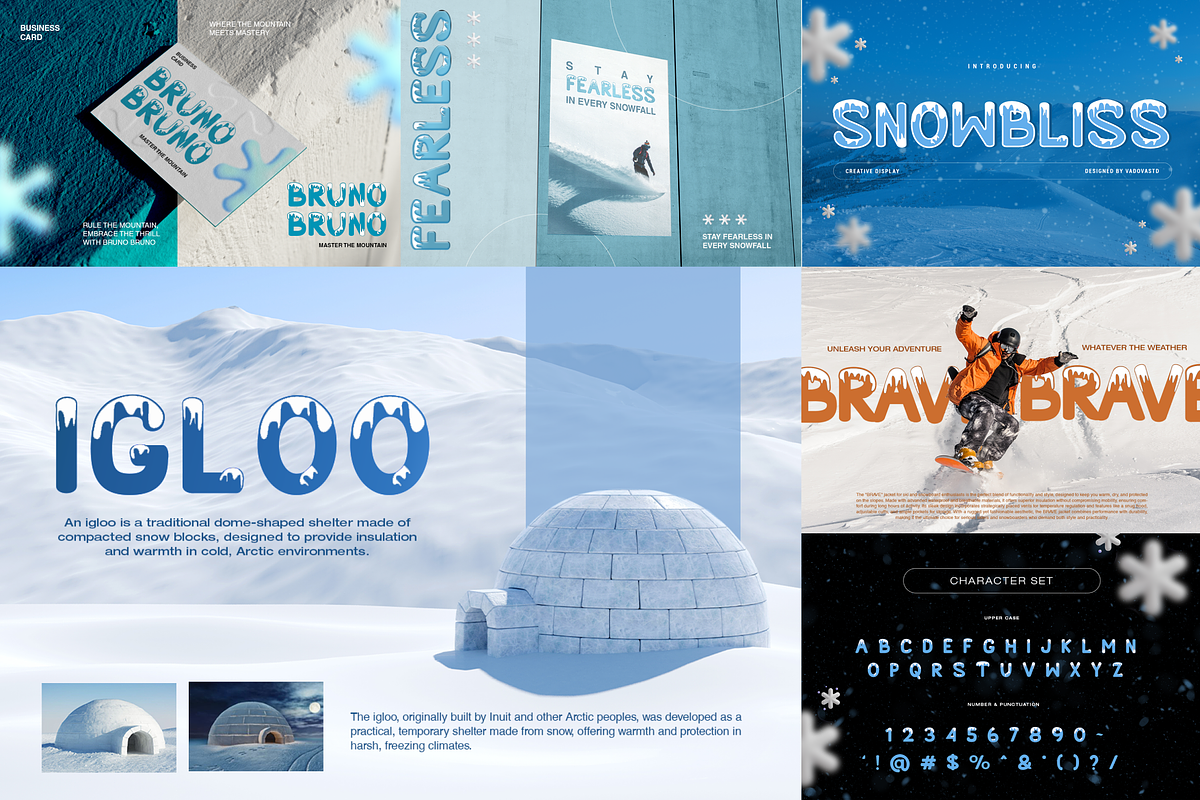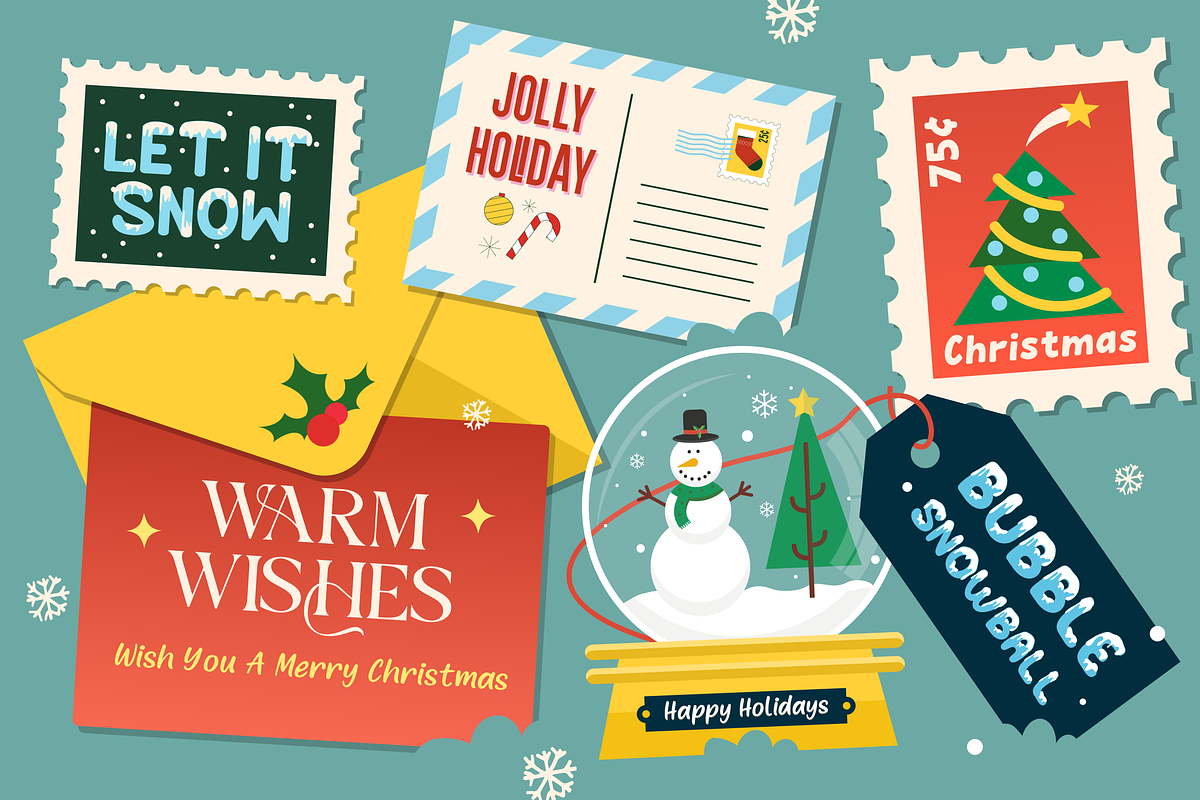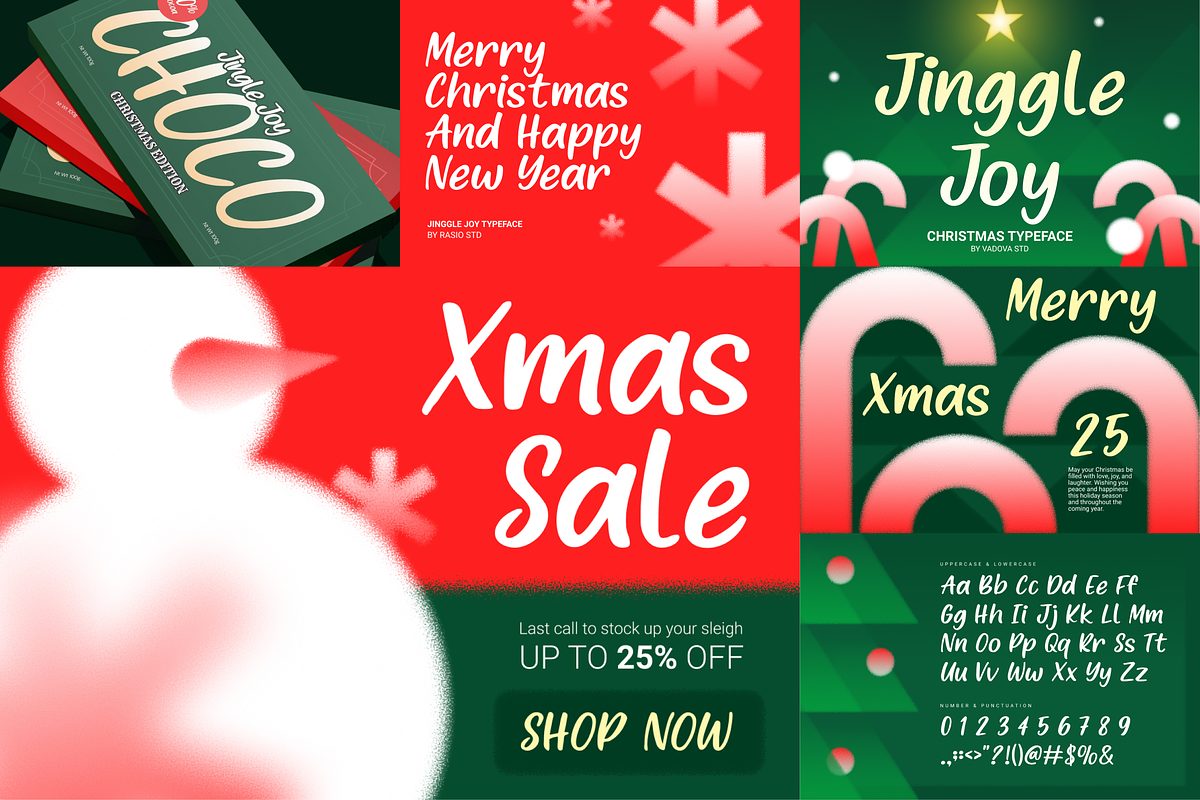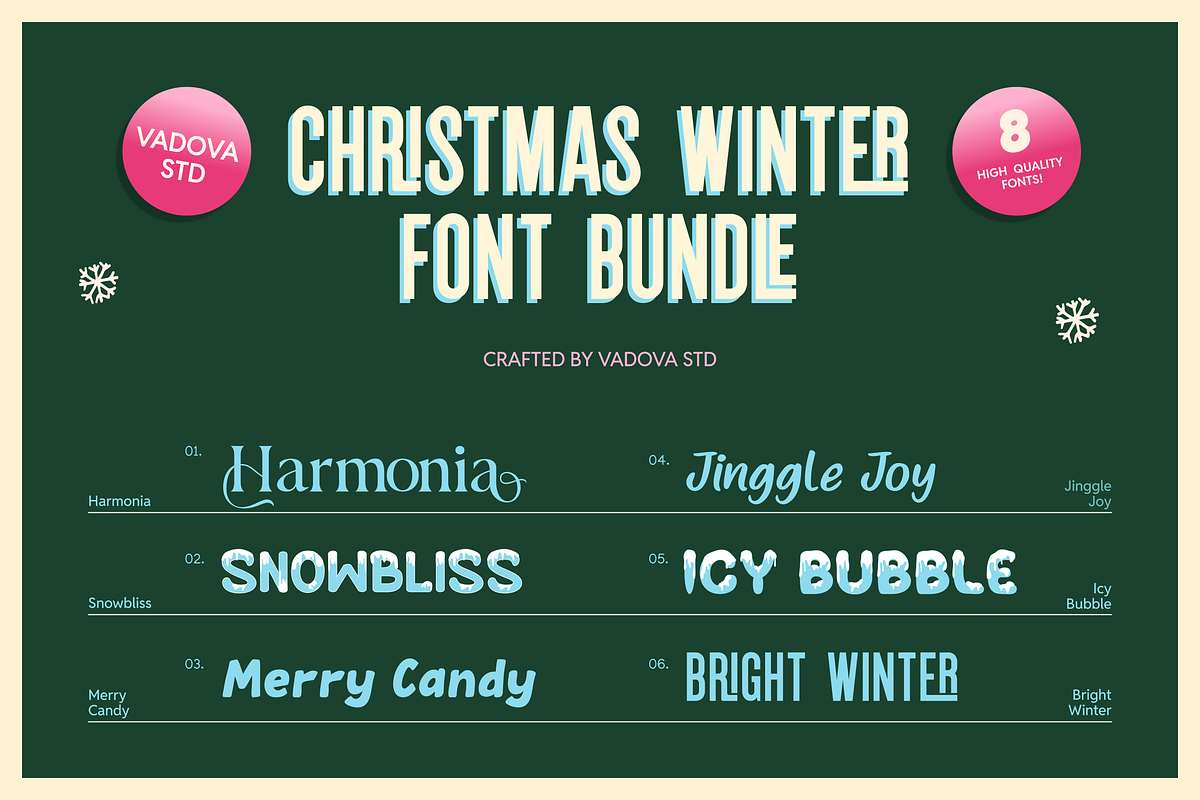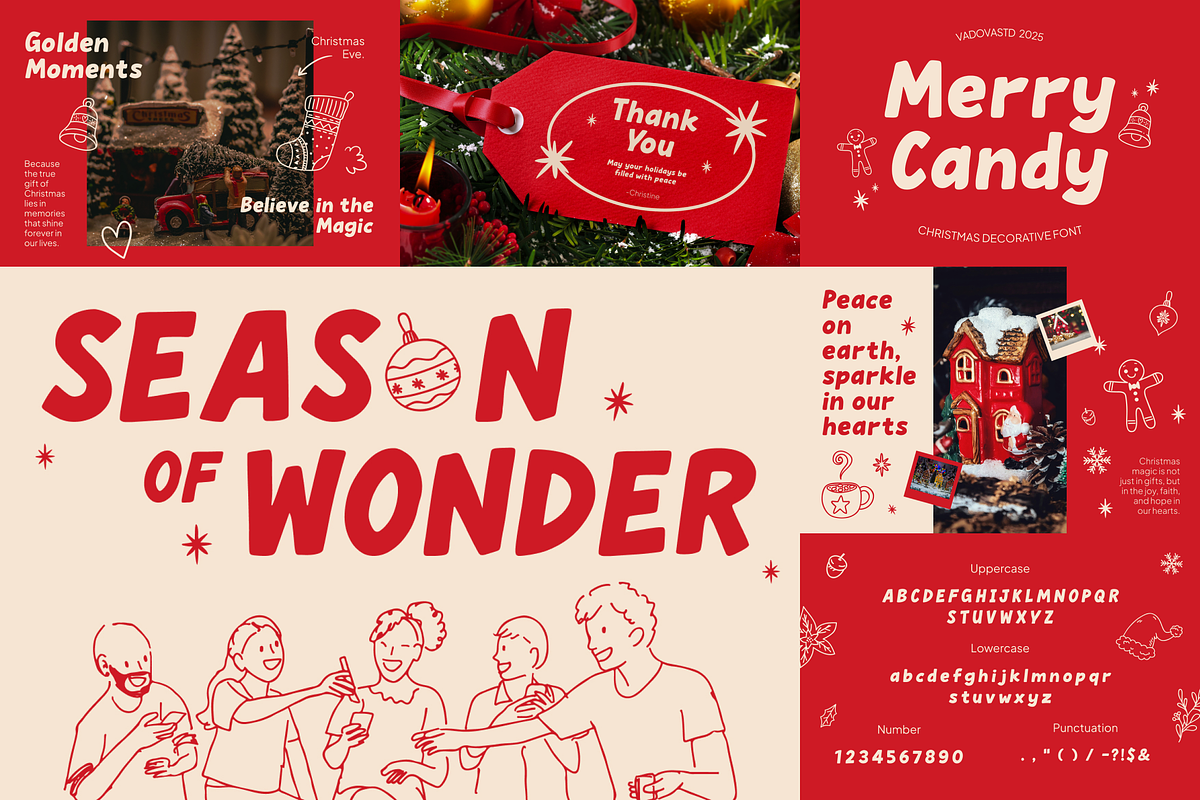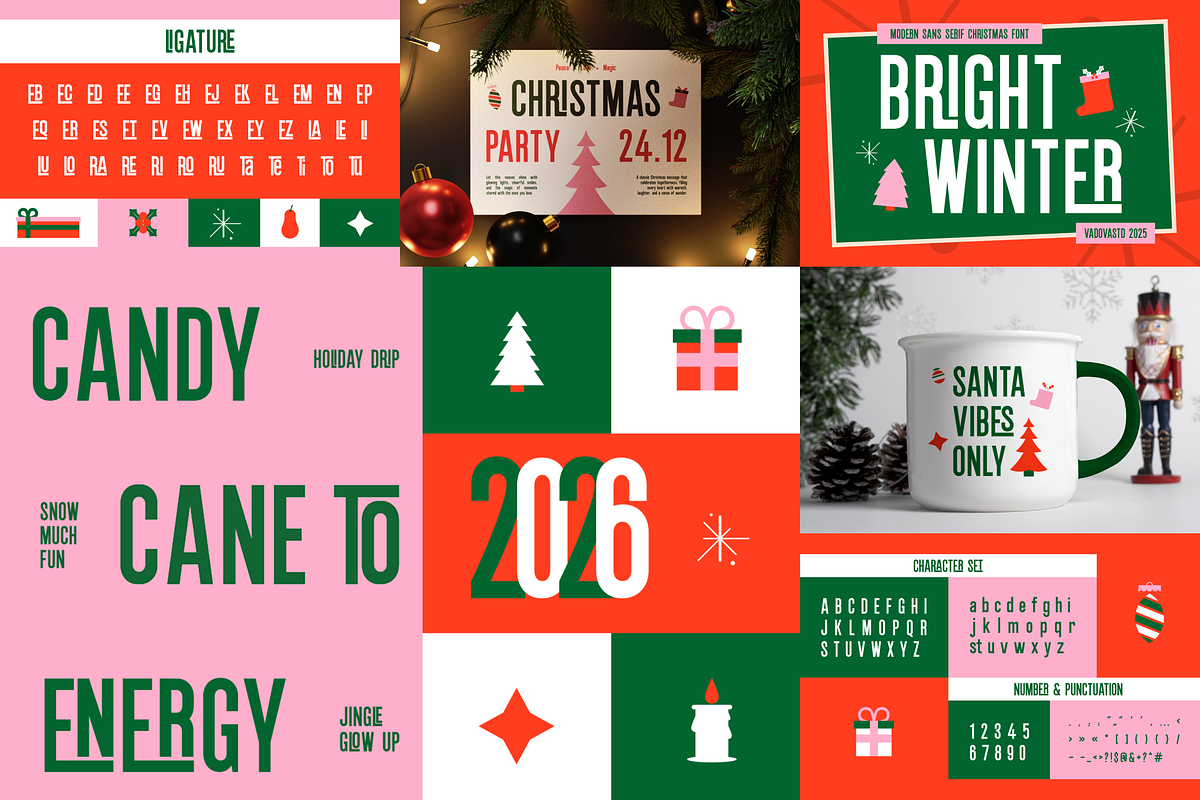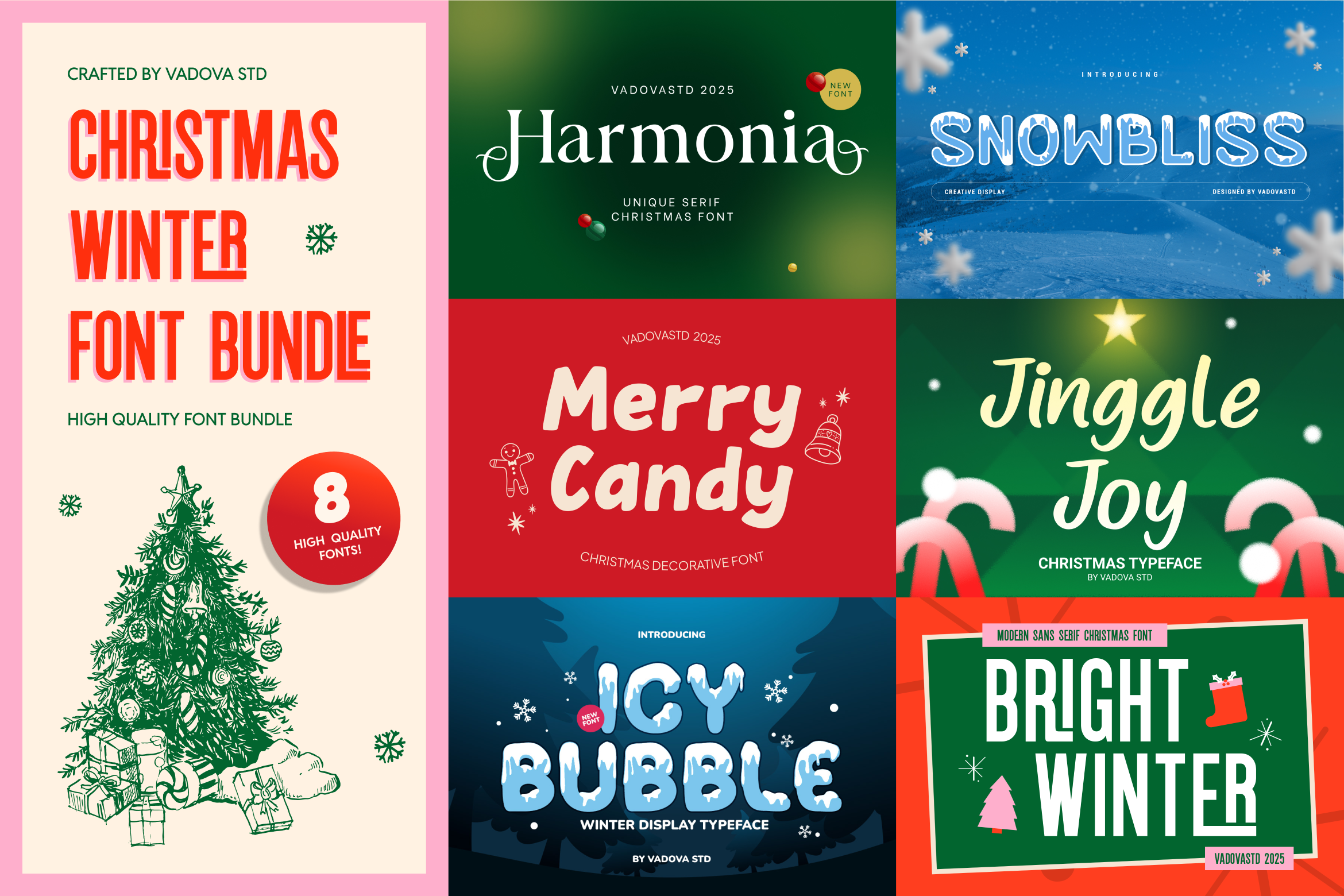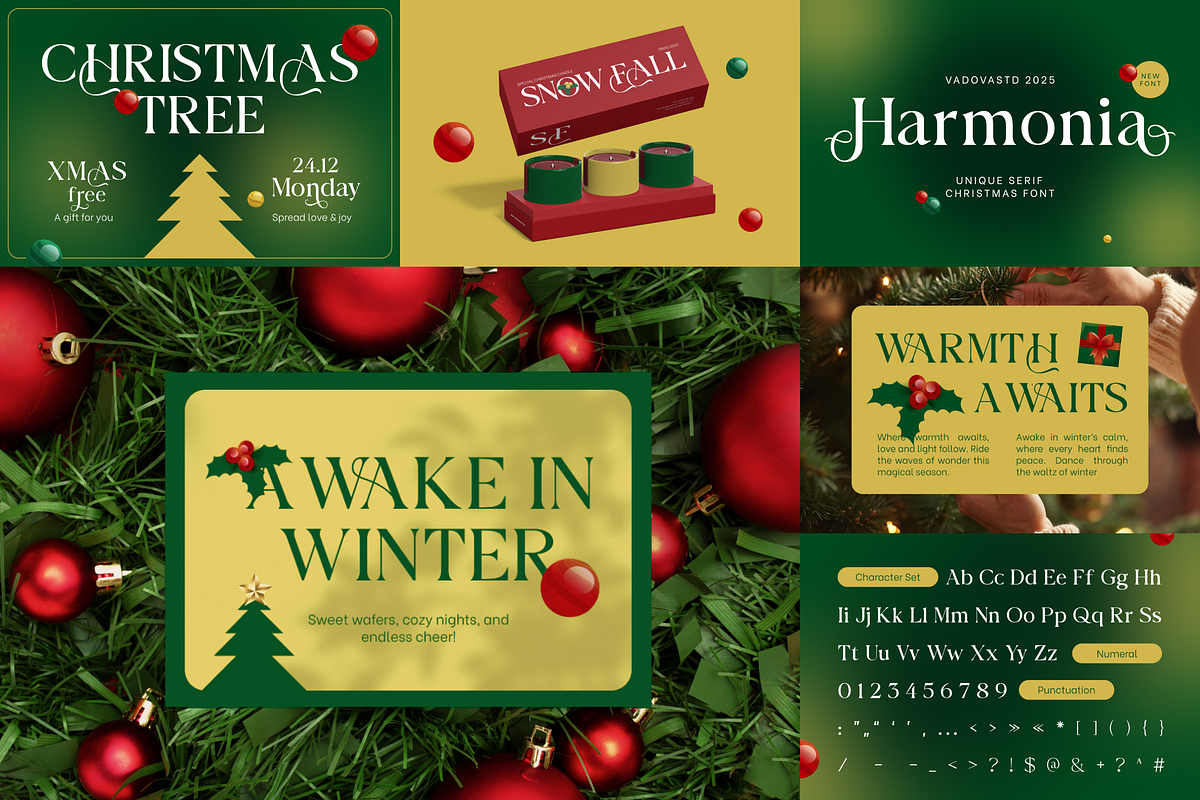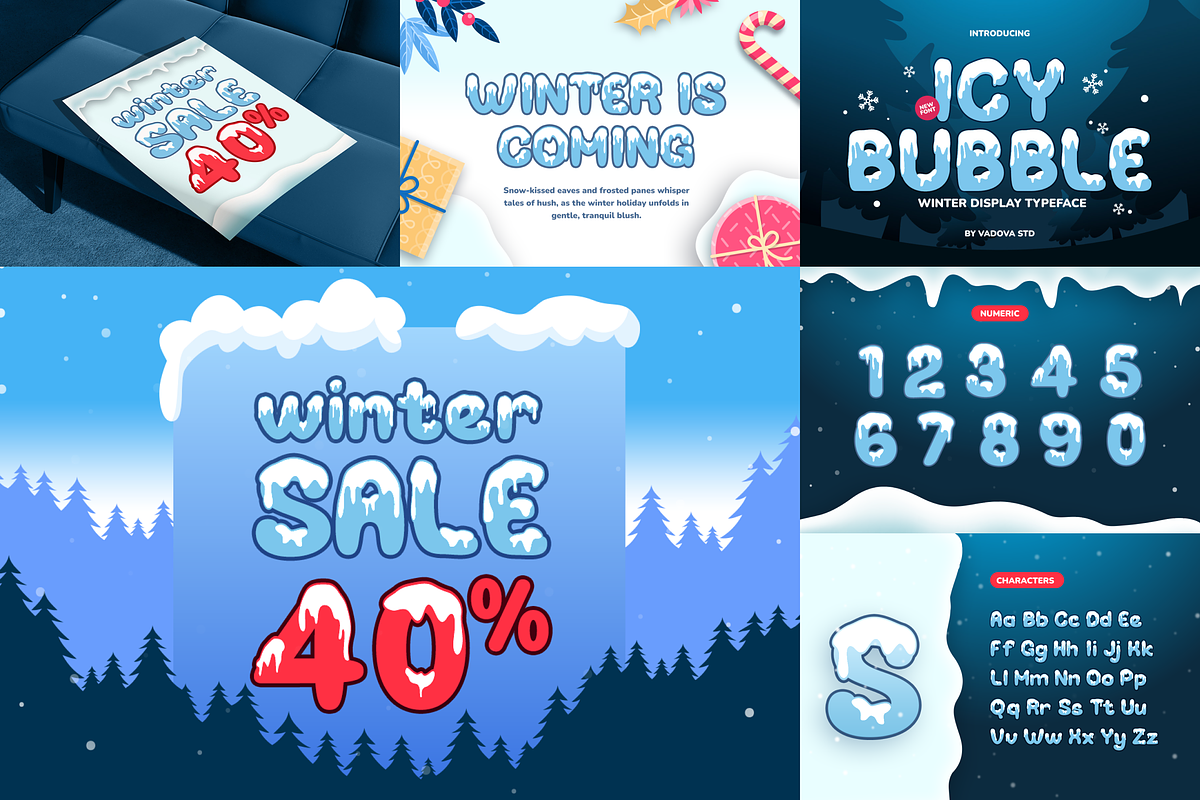
Christmas Winter Font Bundle
The Christmas Winter Font Bundle is a cheerful and festive type collection created to bring warmth, joy, and holiday spirit to your designs. Inspired by cozy winter moments, snowy celebrations, and the magic of Christmas, this bundle features playful letterforms that feel friendly, bright, and full of seasonal charm. Each typeface is crafted to stand out in display use, with fun details, soft shapes, and expressive character. Perfect for holiday promotions, greeting cards, social media content, packaging, and seasonal branding, these fonts help your designs feel joyful, inviting, and memorable.
Whether you’re creating Christmas campaigns, winter-themed visuals, or festive merchandise, this bundle provides a versatile and heartwarming typographic solution for the holiday season.
- 8 high-quality Christmas & winter display fonts
- Playful and festive letterforms with seasonal character
- Designed for headlines, decorations, and display use